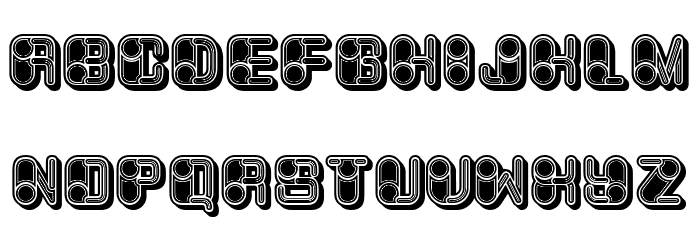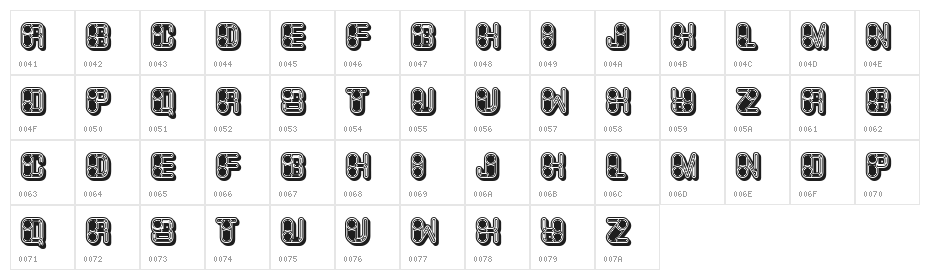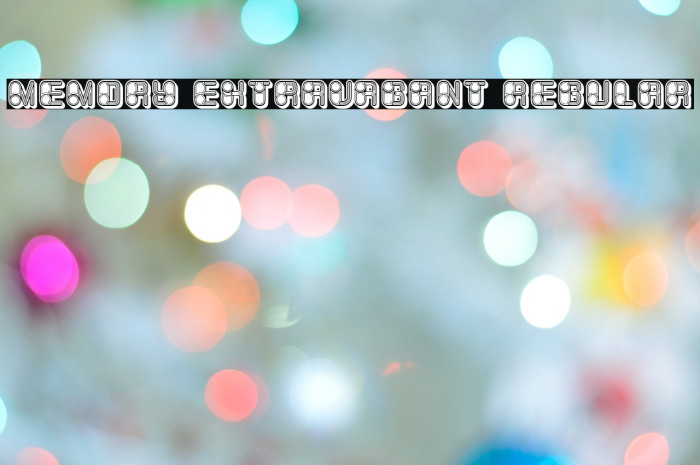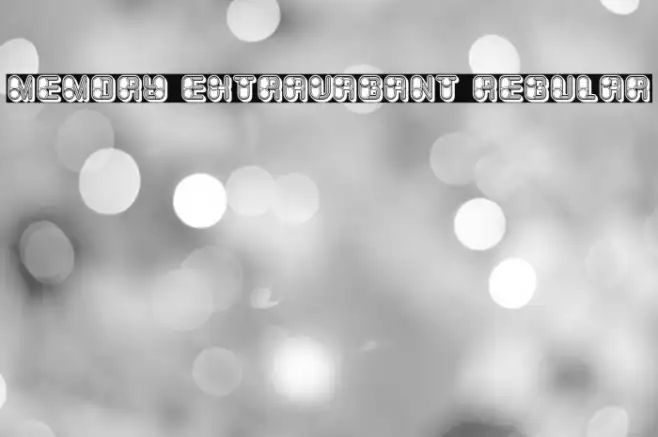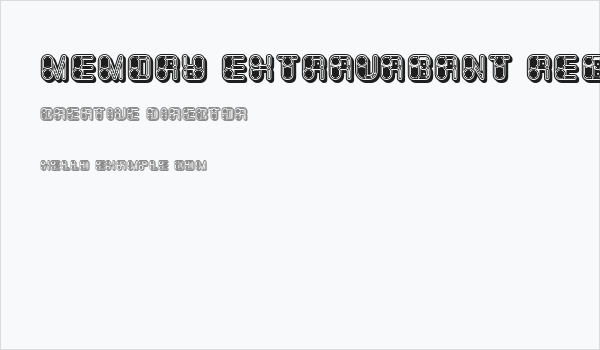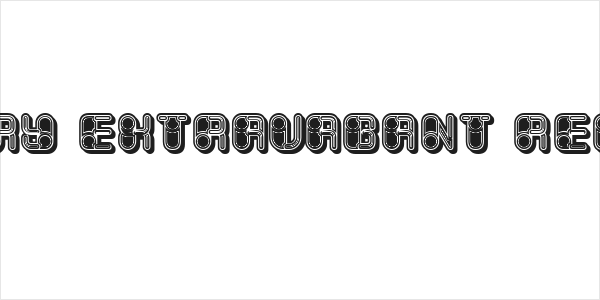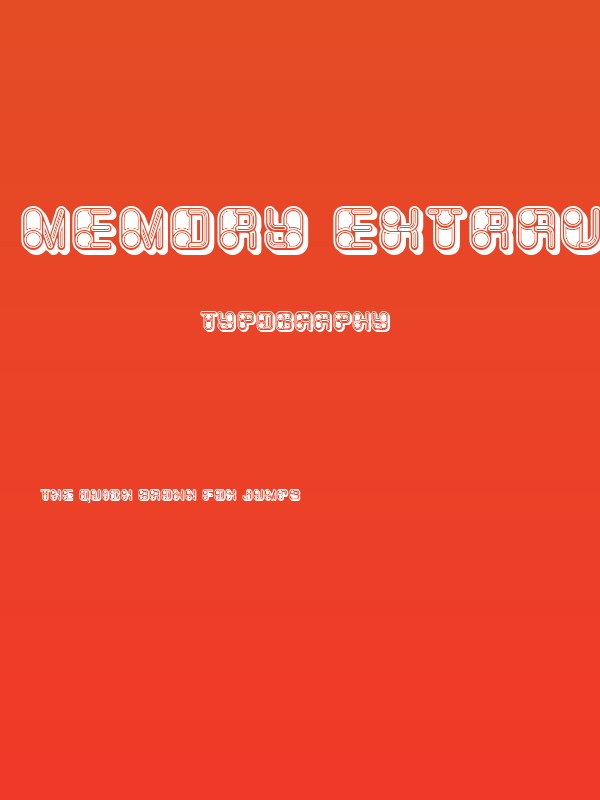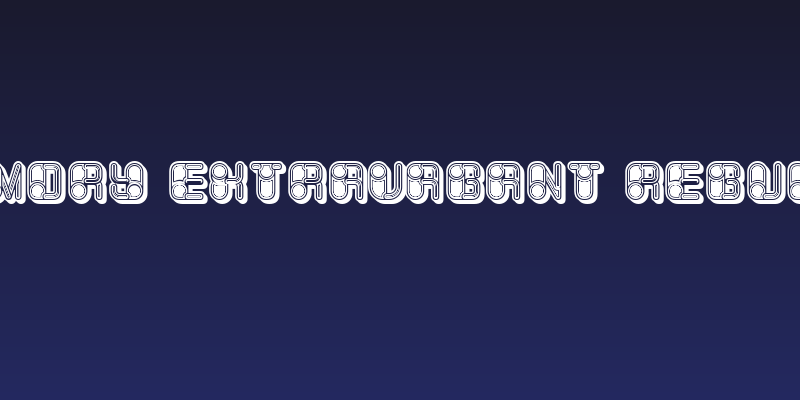
Memory Extravagant Regular Font
Memory Extravagant Regular Description
This font features a bold, decorative style with intricate patterns within each character. The letters are outlined with a thick border, creating a striking visual impact. The design incorporates geometric shapes and negative space, giving it a futuristic and artistic appearance. The uppercase letters are uniform in height, while the lowercase letters maintain a consistent style. The font's unique design makes it stand out, suitable for creative and eye-catching projects. Its complex structure suggests a modern and innovative approach, perfect for making a statement.
| Proposed Projects | Ideal for posters, album covers, branding, and any project requiring a bold, artistic statement. |